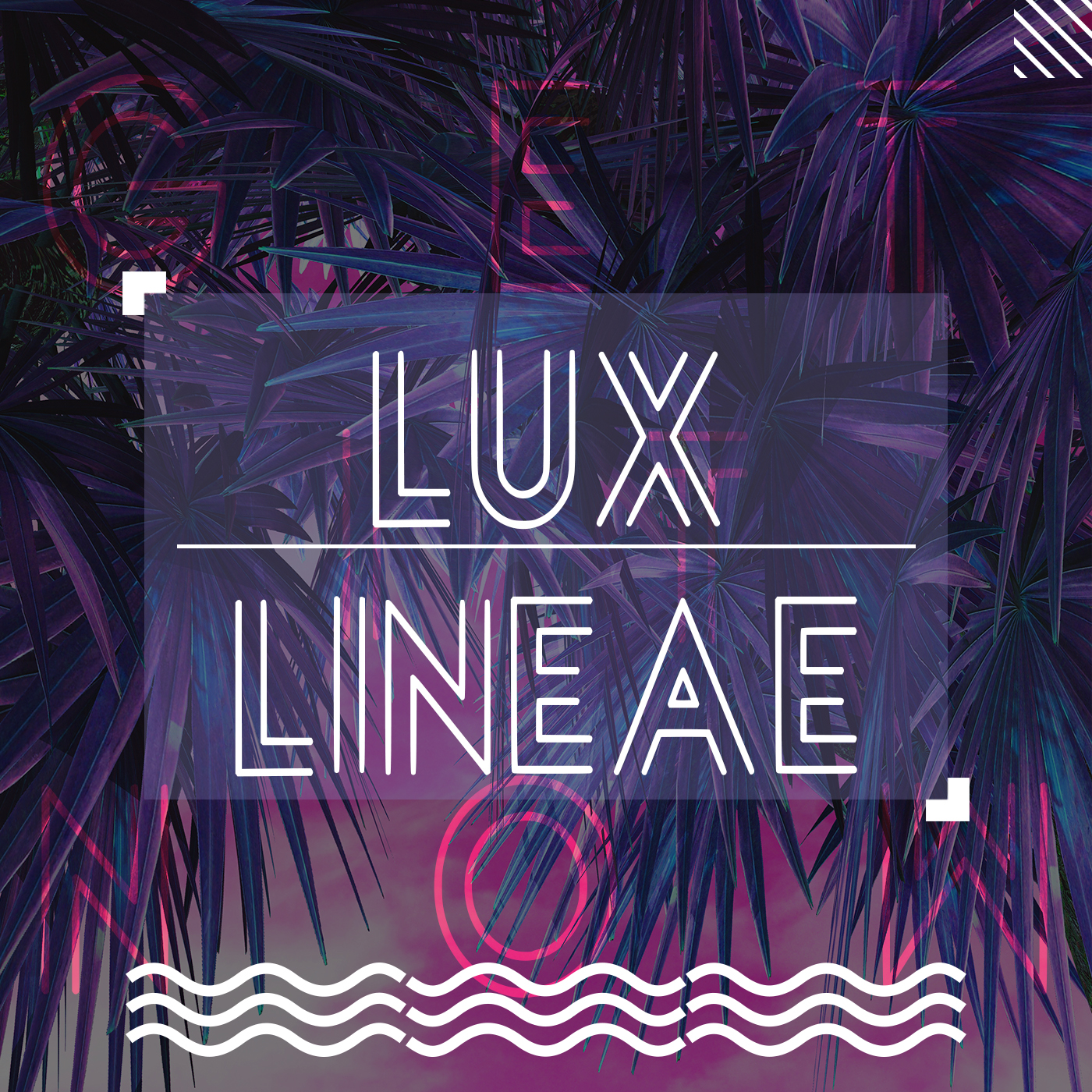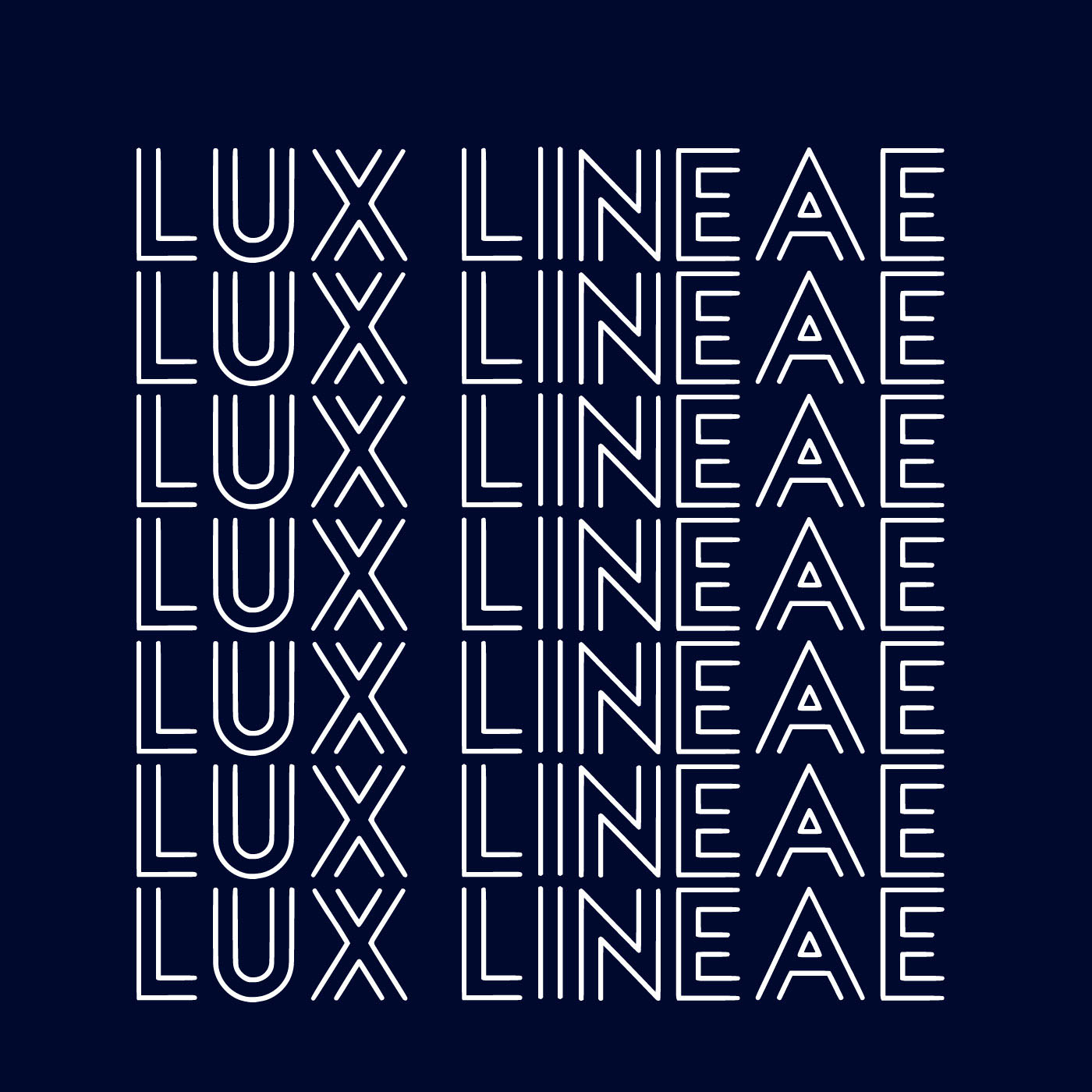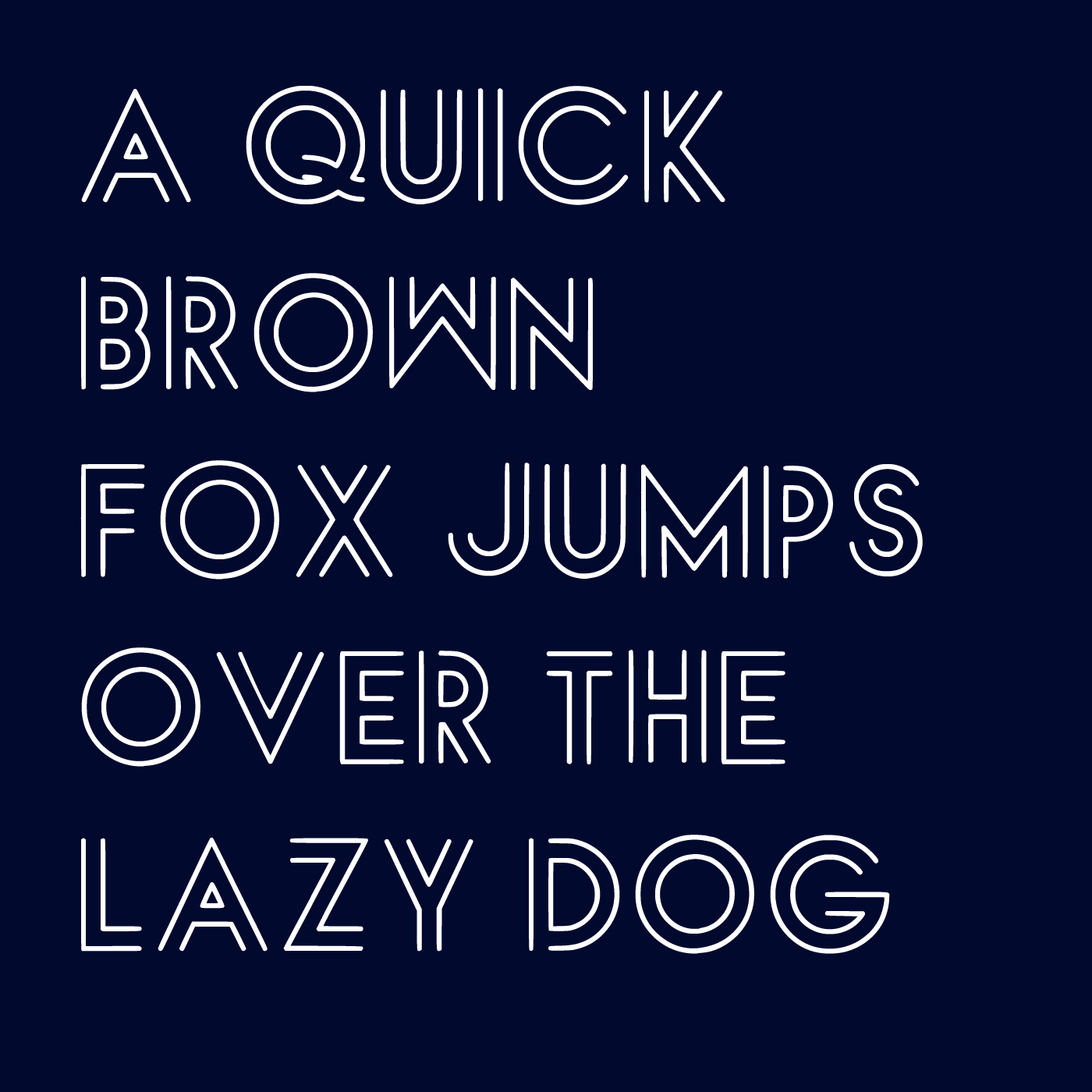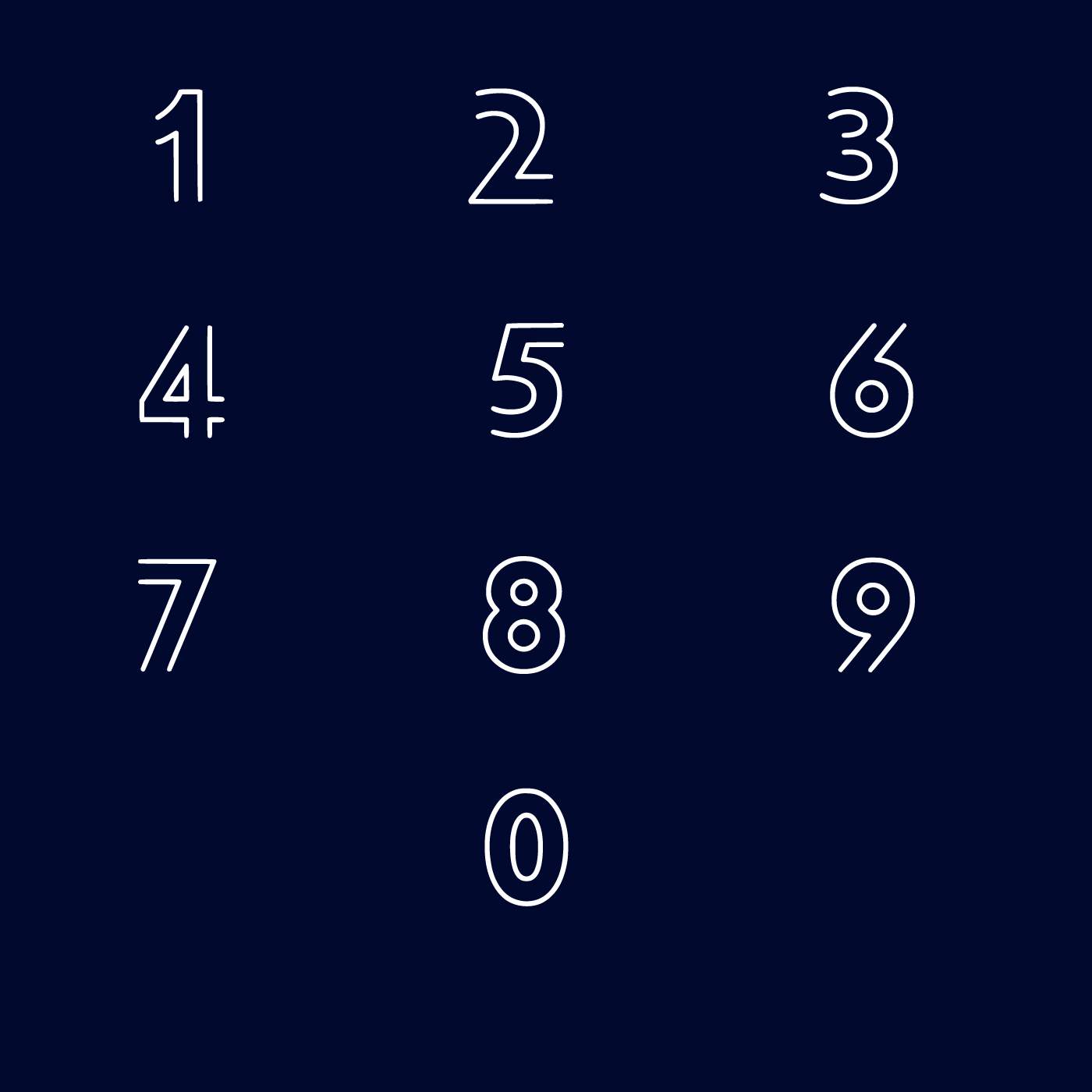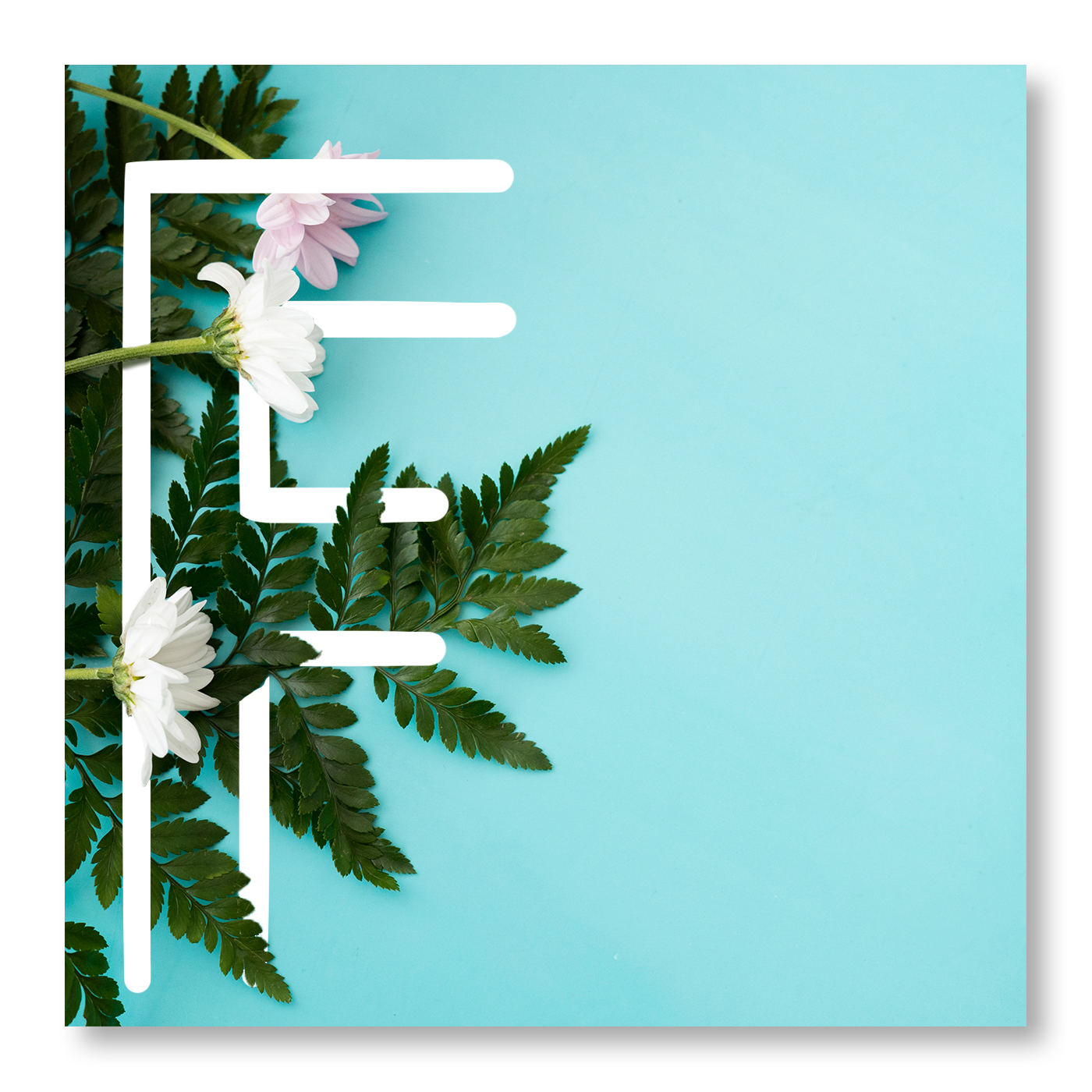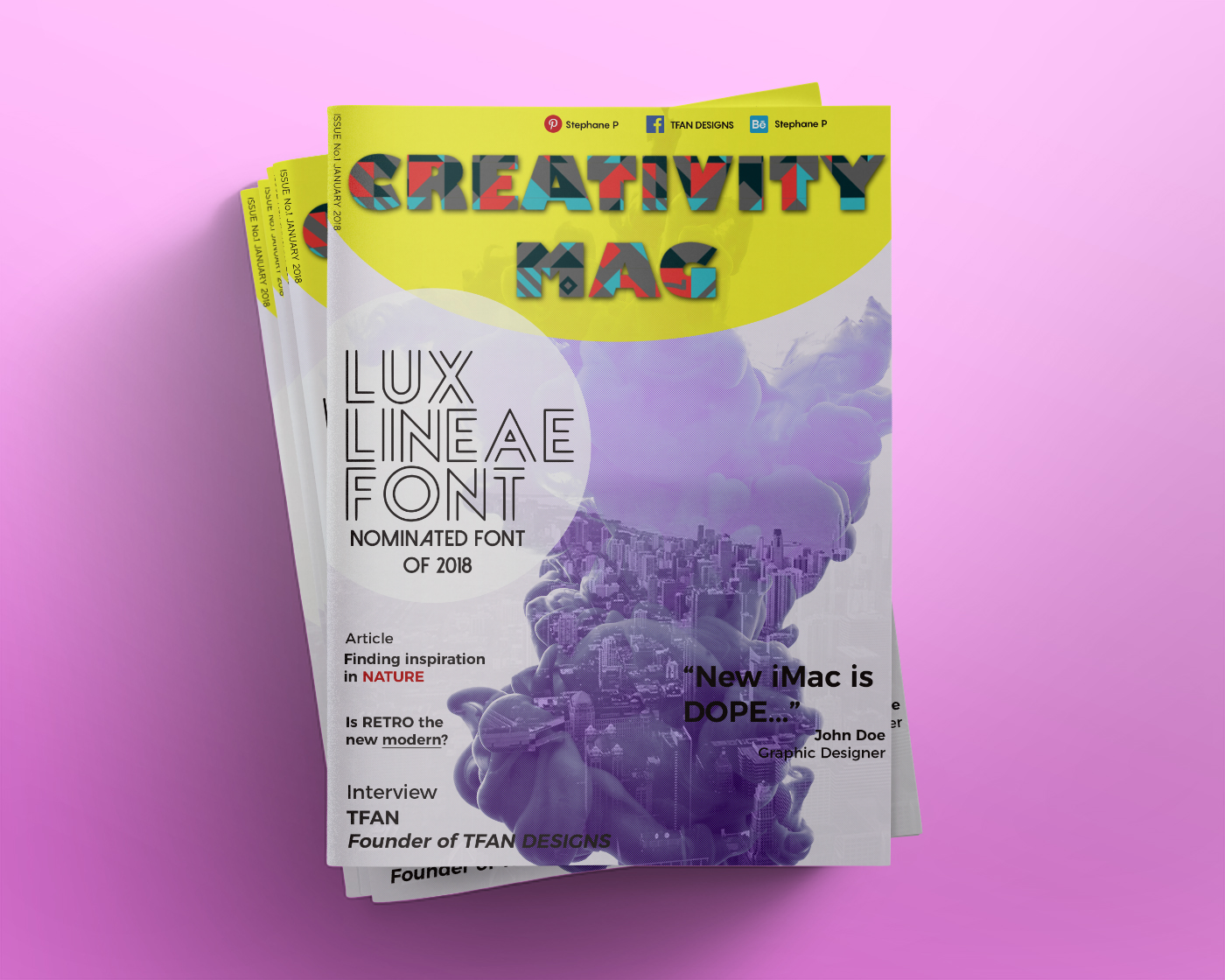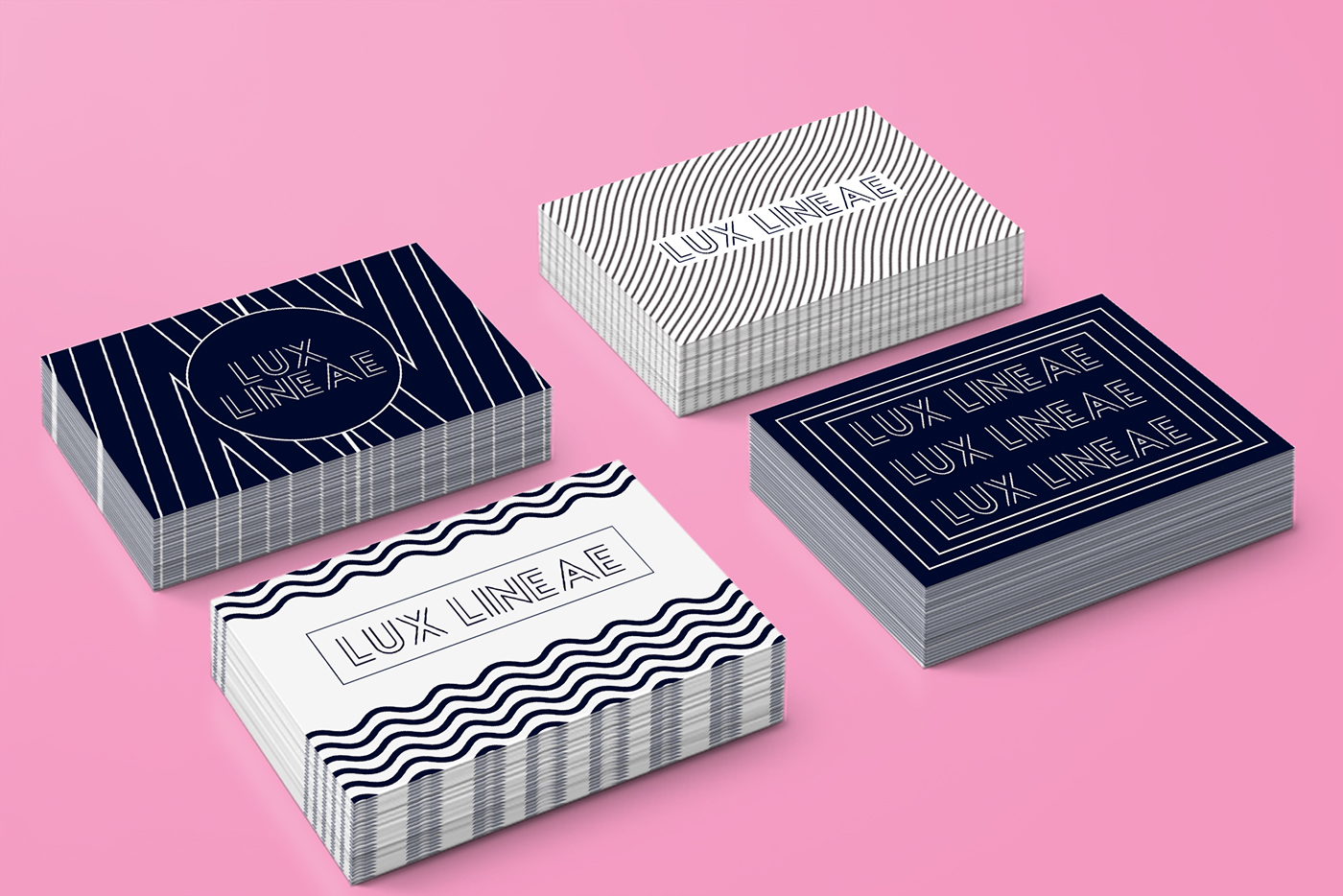
Add a touch of elegance to your latest project with this chic font. Lux Lineae was created by Stephane P from Mauritius. Using this font is the perfect way to add some charm to T-shirts, flyers, invitations, posters, weddings and more. Free for personal and commercial use!